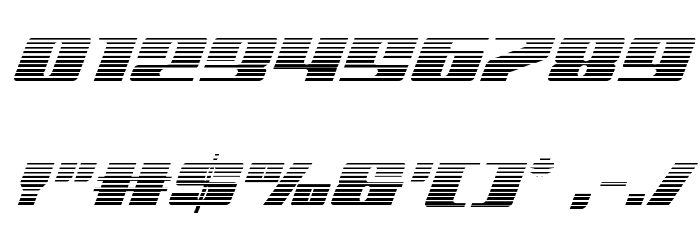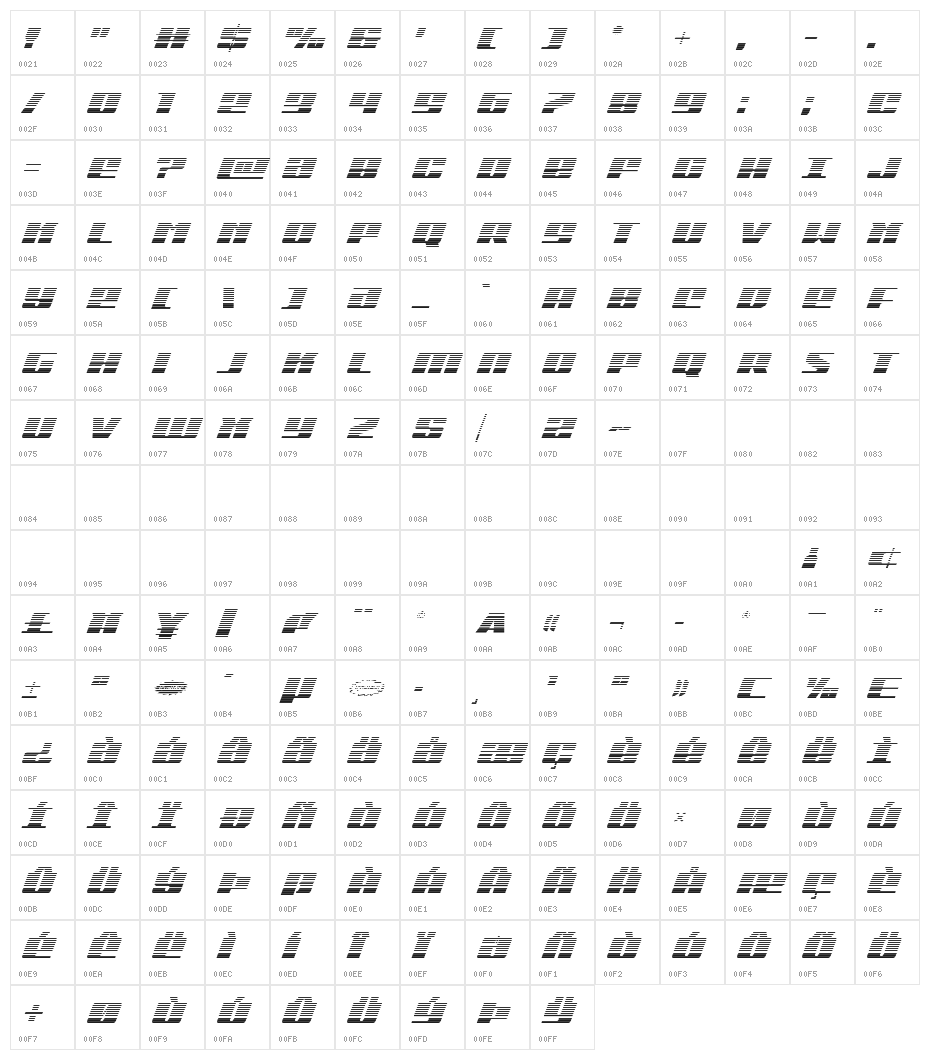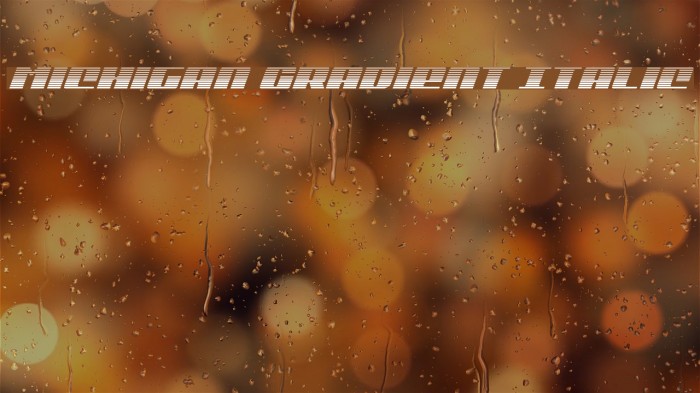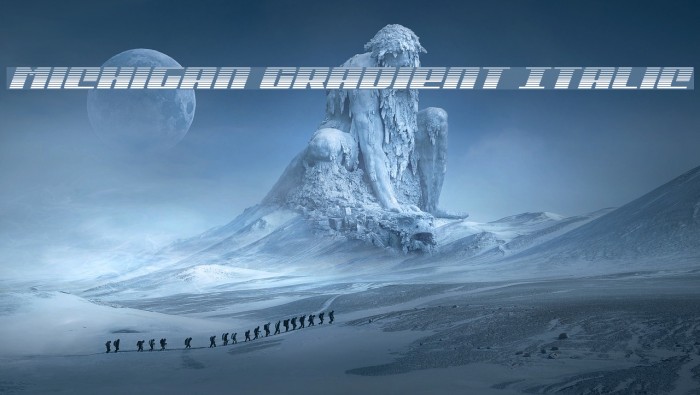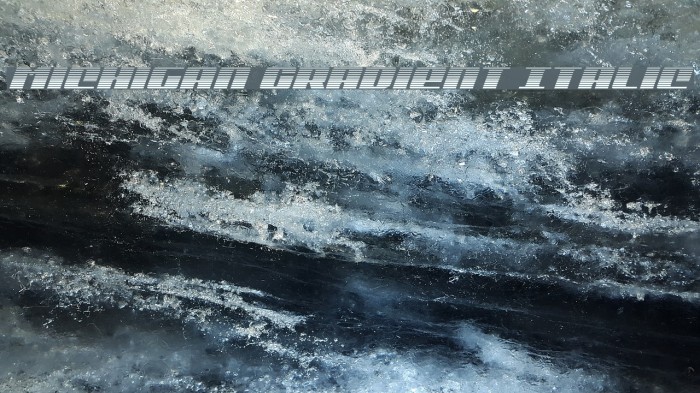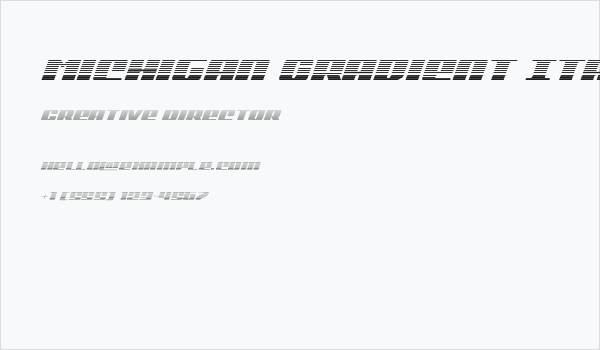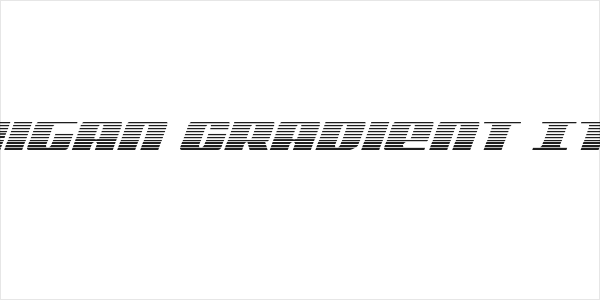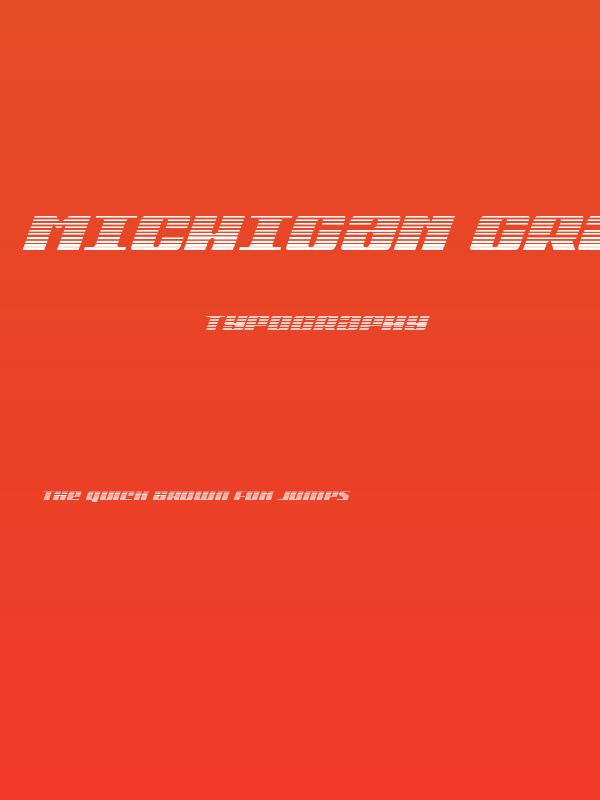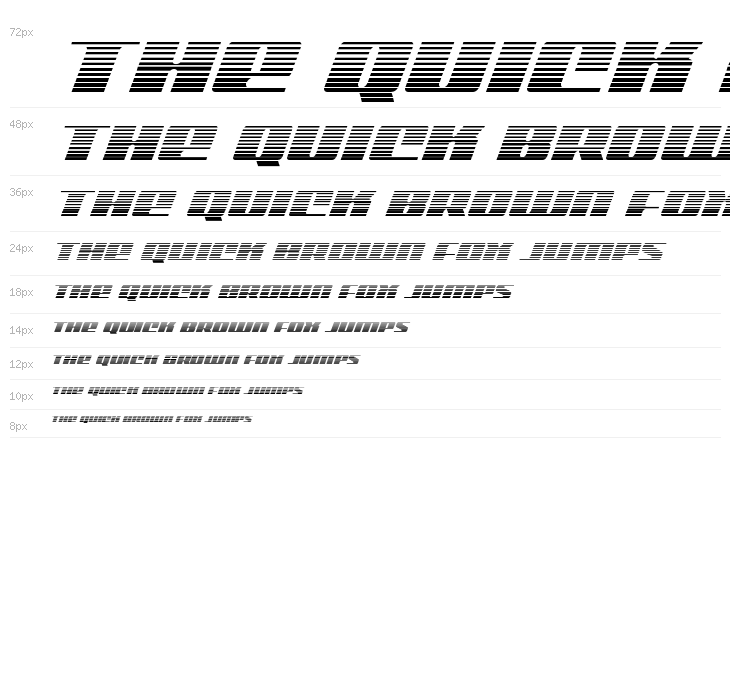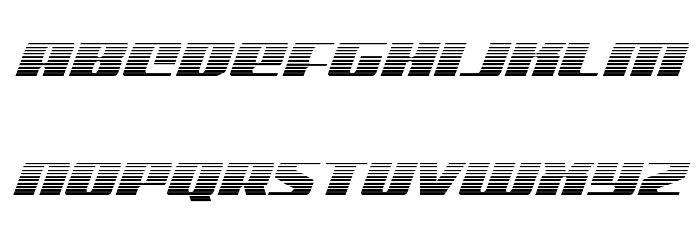
Michigan Gradient Italic Font
Michigan Gradient Italic Description
This font features a bold, italicized style with a distinctive gradient effect that gives it a dynamic and modern appearance. The characters are composed of horizontal lines that create a sense of movement and speed, making it ideal for projects that require a futuristic or high-energy look. The uppercase and lowercase letters maintain a consistent width, while the numbers and special characters follow the same design principles, ensuring uniformity across all text. The gradient effect is particularly effective in larger sizes, where the details of the lines can be fully appreciated.
| Proposed Projects | Ideal for sports branding, automotive advertisements, tech-related projects, and dynamic poster designs. |